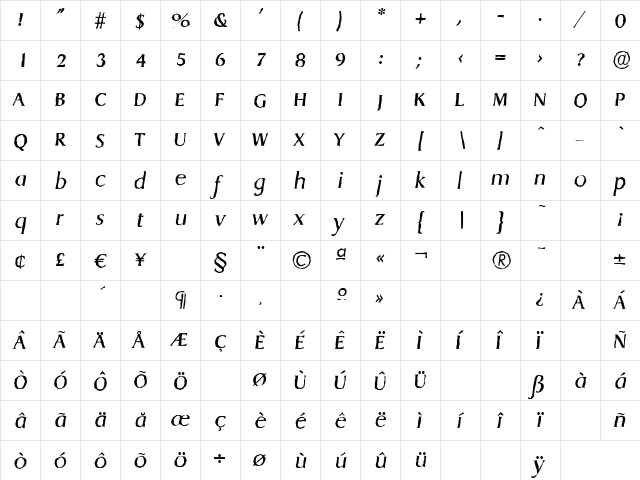
DragonAntique Italic
Design Context for DragonAntique Typeface
DragonAntique has the warm character of retro typography — evoking diners, record sleeves, and the golden age of print advertising. The slanted form adds forward momentum and visual energy.
Ideal for diner signage, record shop branding, 70s/80s-themed projects, and heritage product labels.
Font Pairing: Combine DragonAntique with a simple slab or neutral sans — period-accurate companions reinforce the vintage feel without competing for attention.
Pro Tip: Lean into DragonAntique's period character by pairing it with aged paper textures, muted colour palettes, and vintage illustration styles.